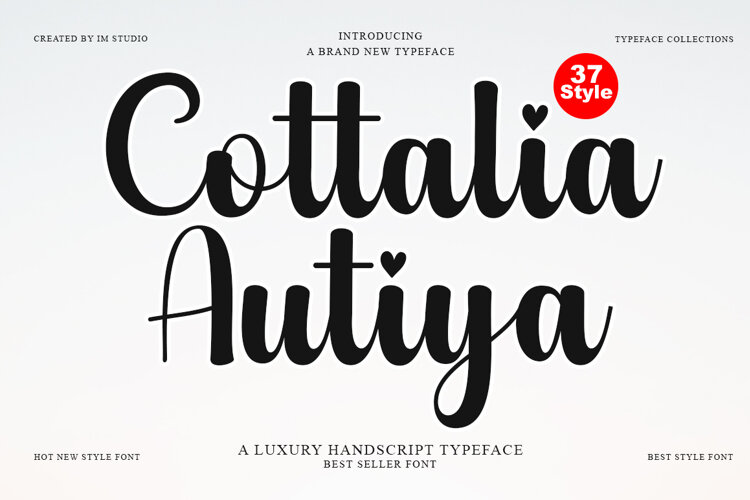
Cottalia Autia - Family Font In 37 Styles
Cottalia Autia - Family Font In 37 Styles !!
Introducing the Cottalia Autia Typeface — part of a versatile family of 37 distinctive typefaces, designed with a beautiful and elegant touch.
Cottalia Autia stands out for its sleek, clean, feminine, sensual, glamorous, and easy-to-read style, enhanced by graceful letterjoints and gentle curves. The typeface also includes a variety of stylish alternates and ligatures for added design flexibility. Perfect for both modern and classic applications, this typeface is perfect for invitations, logos, labels, restaurant menus, fashion, beauty branding, stationery, novels, magazines, books, greeting/wedding cards, packaging, and all types of advertising projects.
37 Typeface Styles: Regular, Italic, "Ultra Condensed", "Extra Condensed", Condensed, "Semi Condensed", "Semi Expanded", Expanded, "Extra Expanded", "Ultra Expanded"
Full Character Set:
Uppercase & Lowercase
Alternatives & Ligatures
Punctuation & Numbers
Multilingual Support